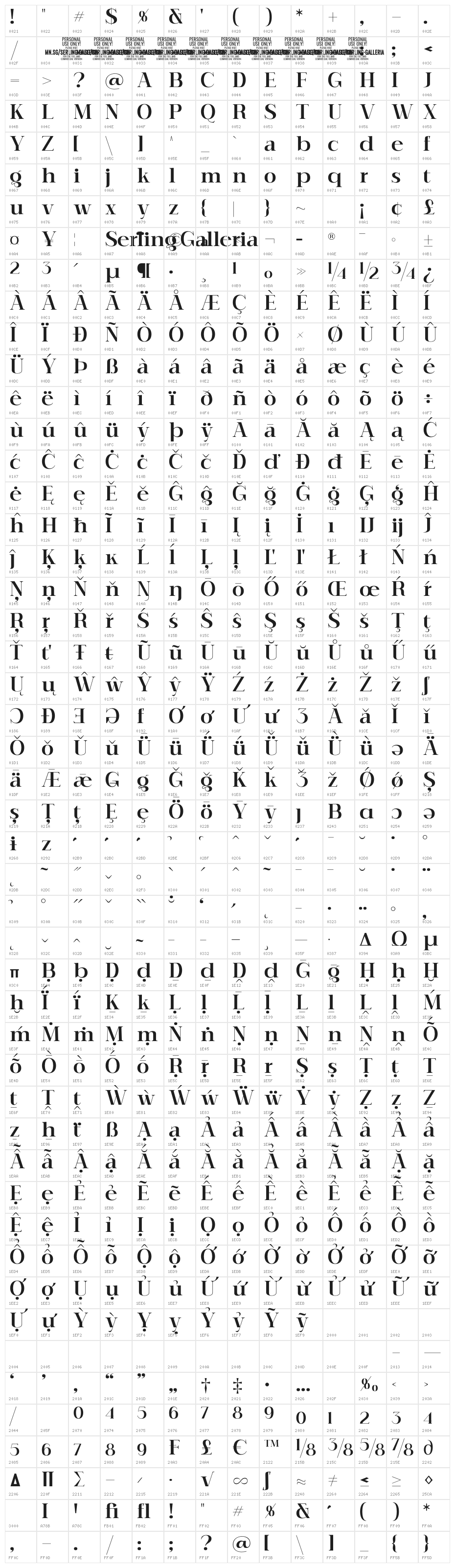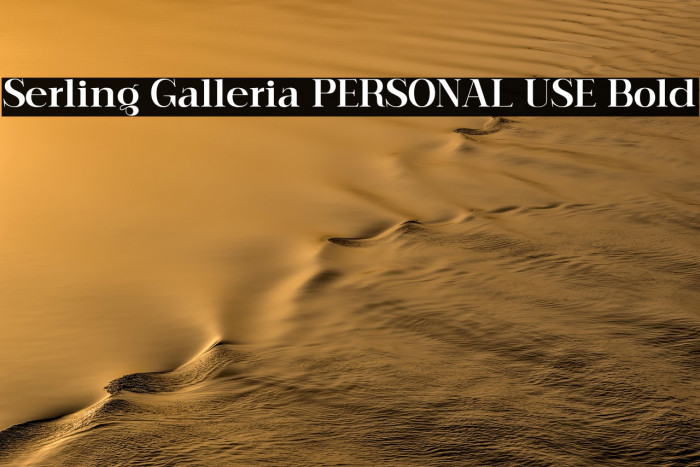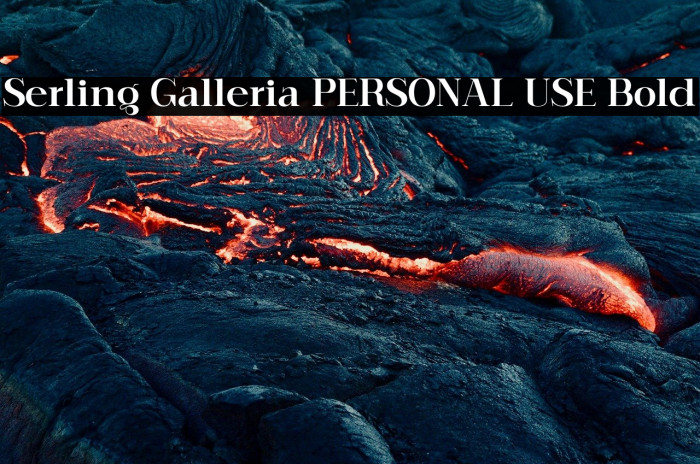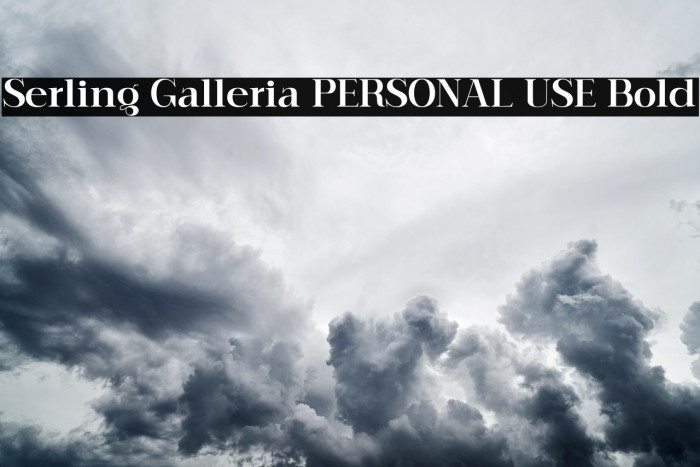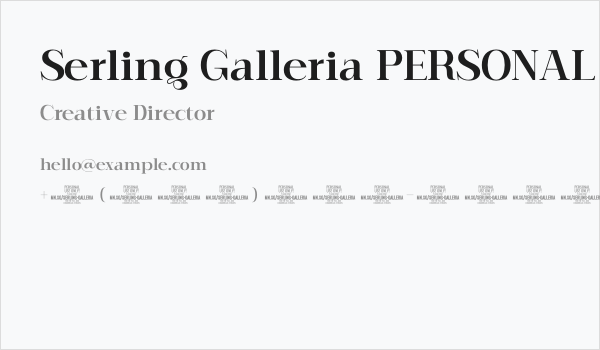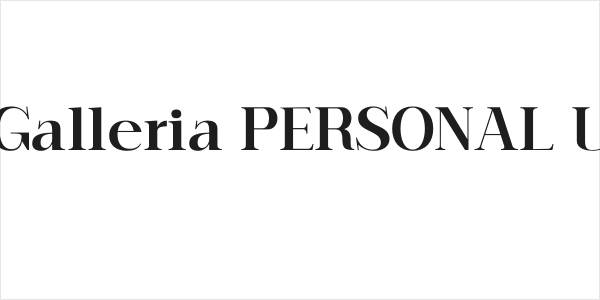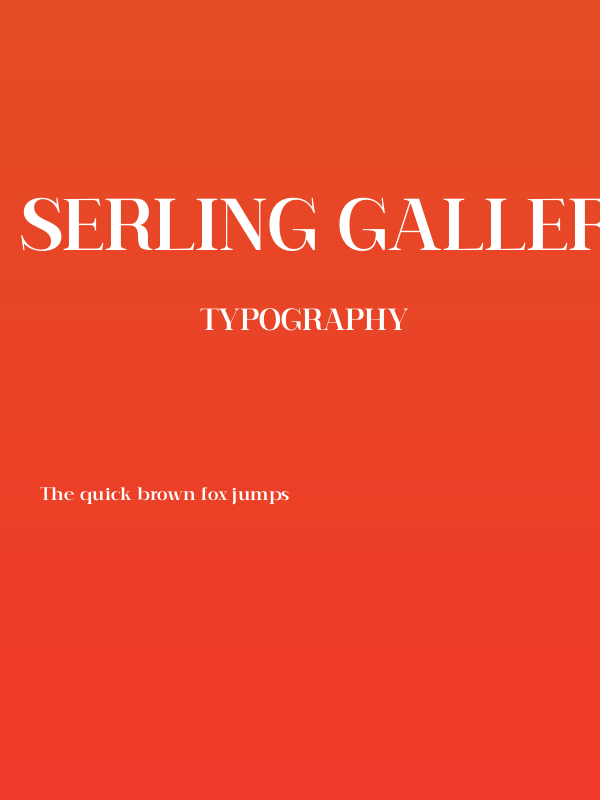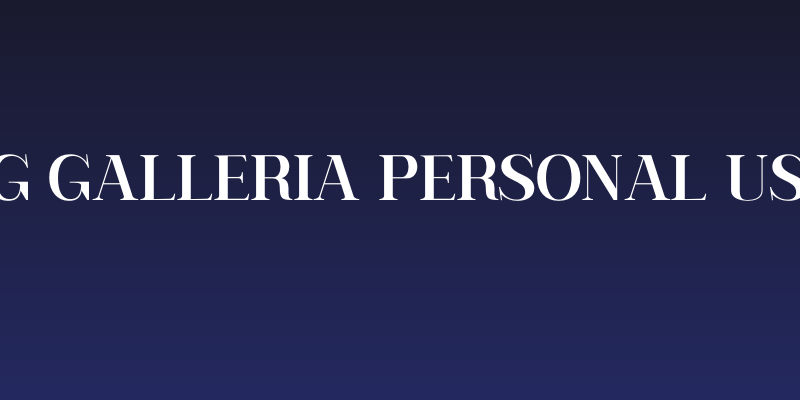
Serling Galleria PERSONAL USE Bold Font
Serling Galleria PERSONAL USE Bold Description
This font exhibits a classic serif style with a bold weight, characterized by its elegant and sophisticated appearance. The uppercase letters are tall and commanding, while the lowercase letters maintain a balanced and readable form. The serifs are pronounced, adding a touch of traditional flair, yet the overall design remains modern and versatile. The numerals are consistent with the font's bold nature, ensuring clarity and impact. Special characters are well-integrated, maintaining the font's cohesive aesthetic. This font is suitable for projects that require a blend of tradition and modernity.
CategoriesSerif
Overall StyleClassic
Use CaseHeadlines, Logos, Editorial design
Proposed ProjectsIdeal for branding, editorial design, book covers, and formal invitations.